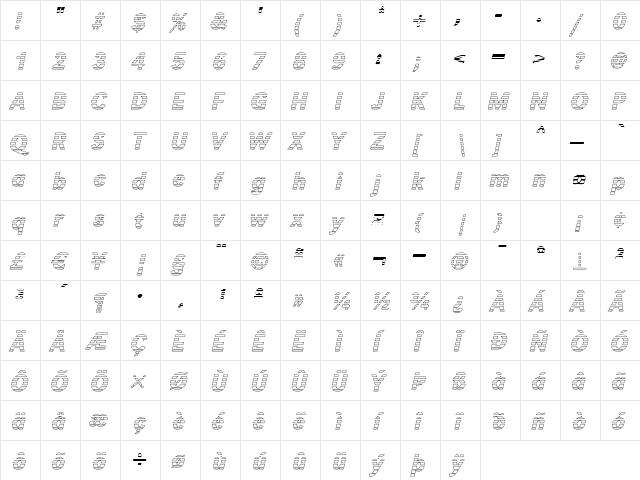
TomBeckerGradoC-Medium Italic Font Preview
TomBeckerGradoC-Medium Italic
Design Context for TomBeckerGradoC-Medium Typeface
TomBeckerGradoC-Medium is a composed and adaptable typeface that performs quietly and consistently across a wide range of design contexts. The slanted form adds forward momentum and visual energy.
Pro Tip: Try TomBeckerGradoC-Medium for annotation and caption copy alongside an upright companion — the contrast in angle creates a dynamic but ordered typographic system.